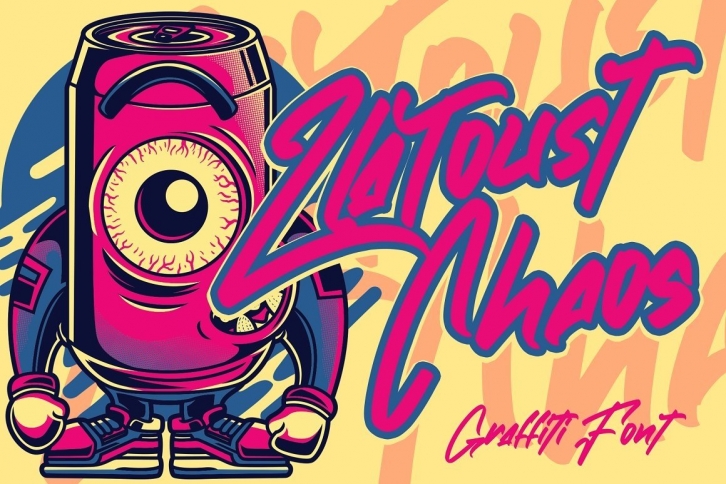
Zlatoust Chaos is a great font that was designed by Arendxstudio. Imagine the amount of combinations you can create using this font! The archive is 12.49 MB and it was released on December 30, 2020. Zlatoust Chaos looks beautiful on wedding invitations, greeting cards, logos, posters, labels, t-shirt designs, logos, business cards and is perfect for use in ink or watercolor works, fashion, magazines, packaging and food menus, children's books and more!